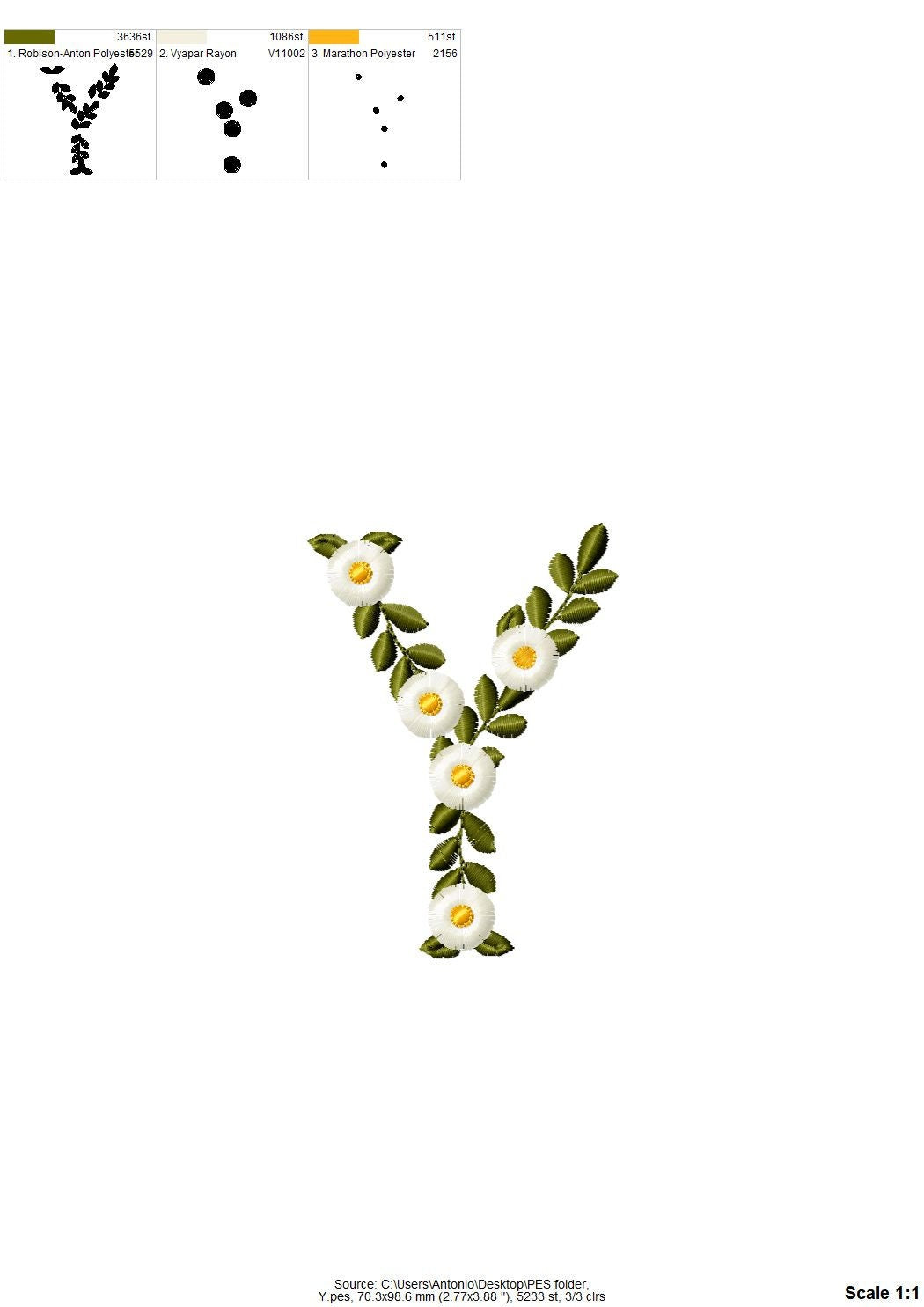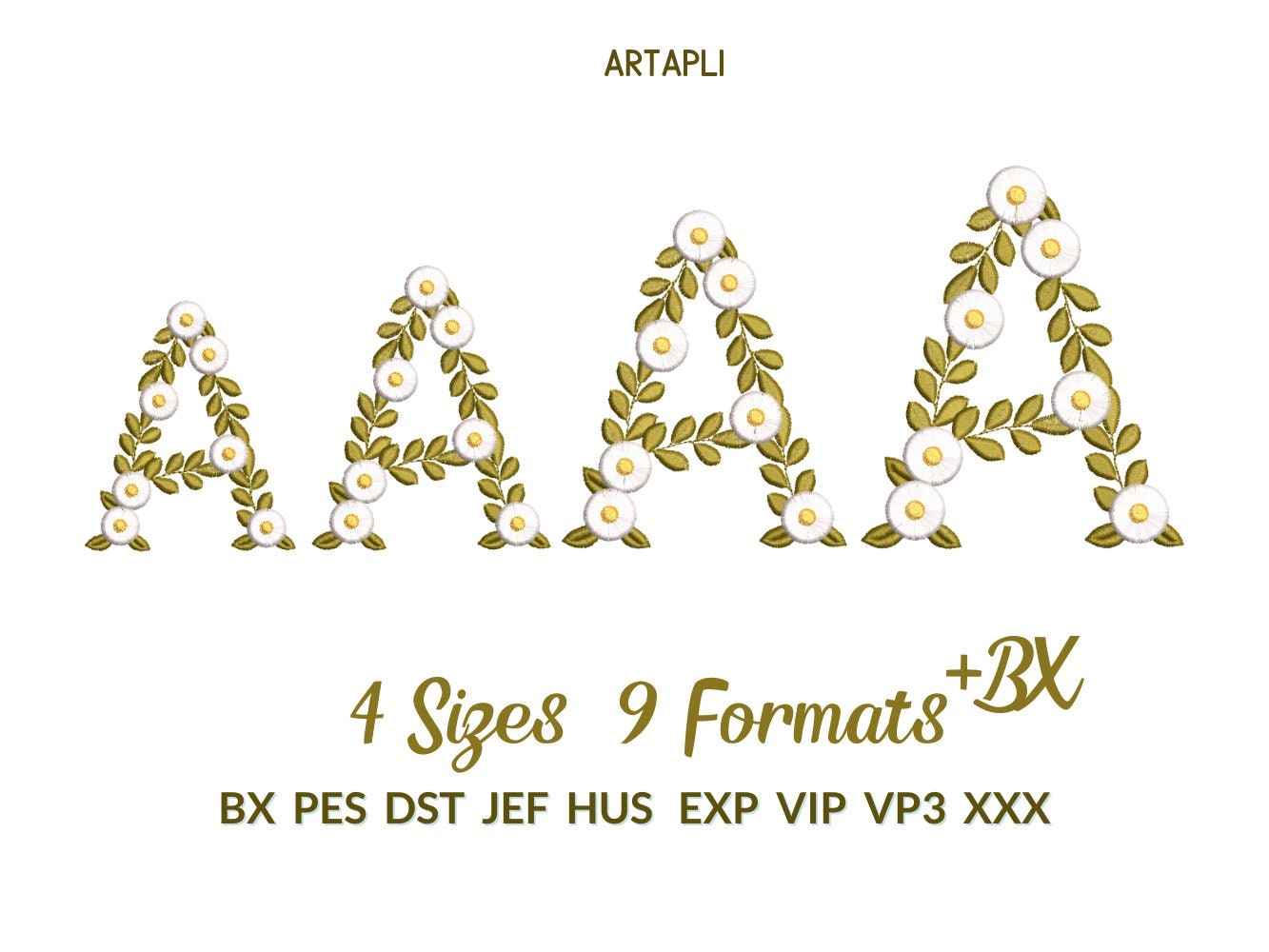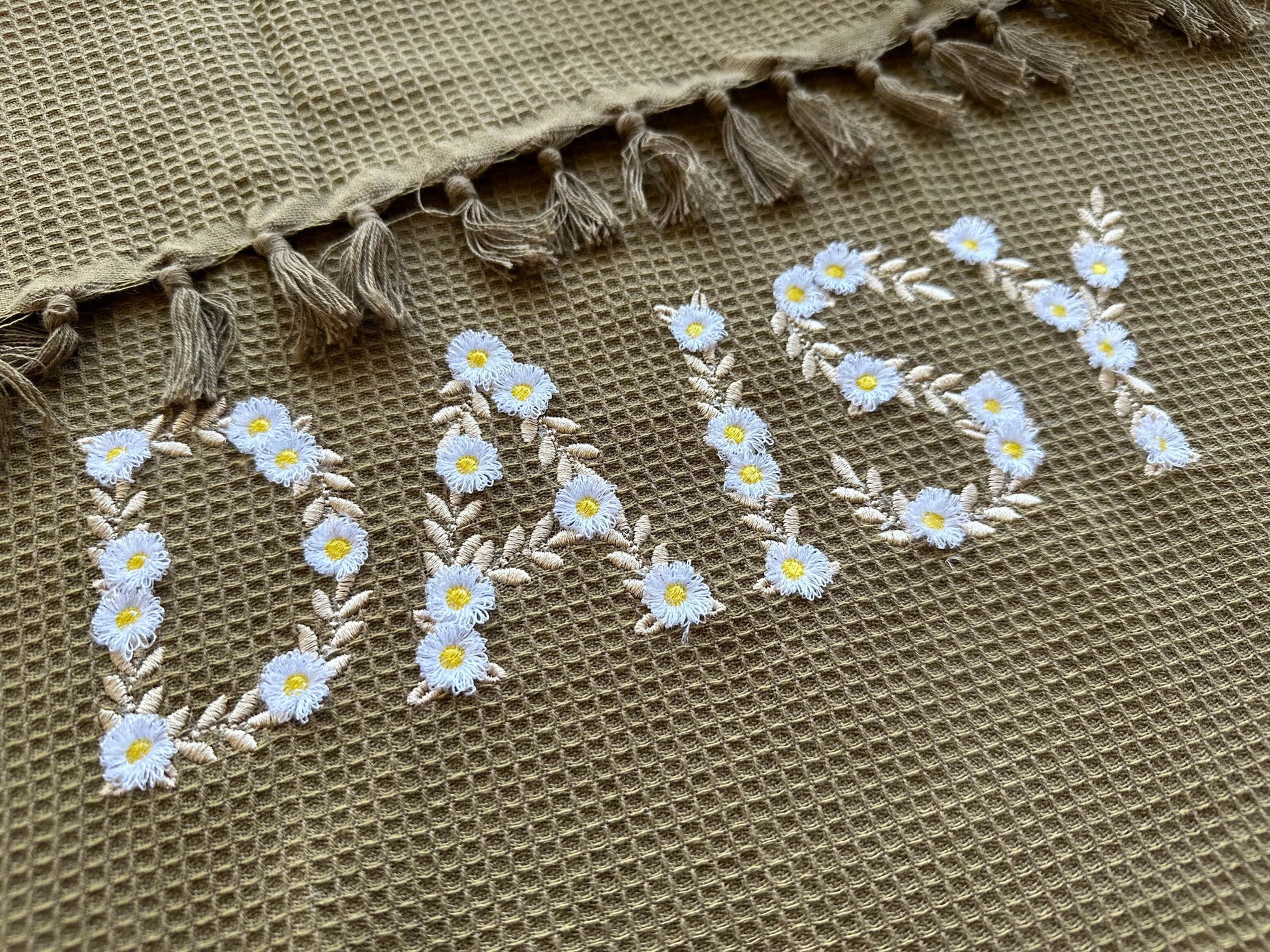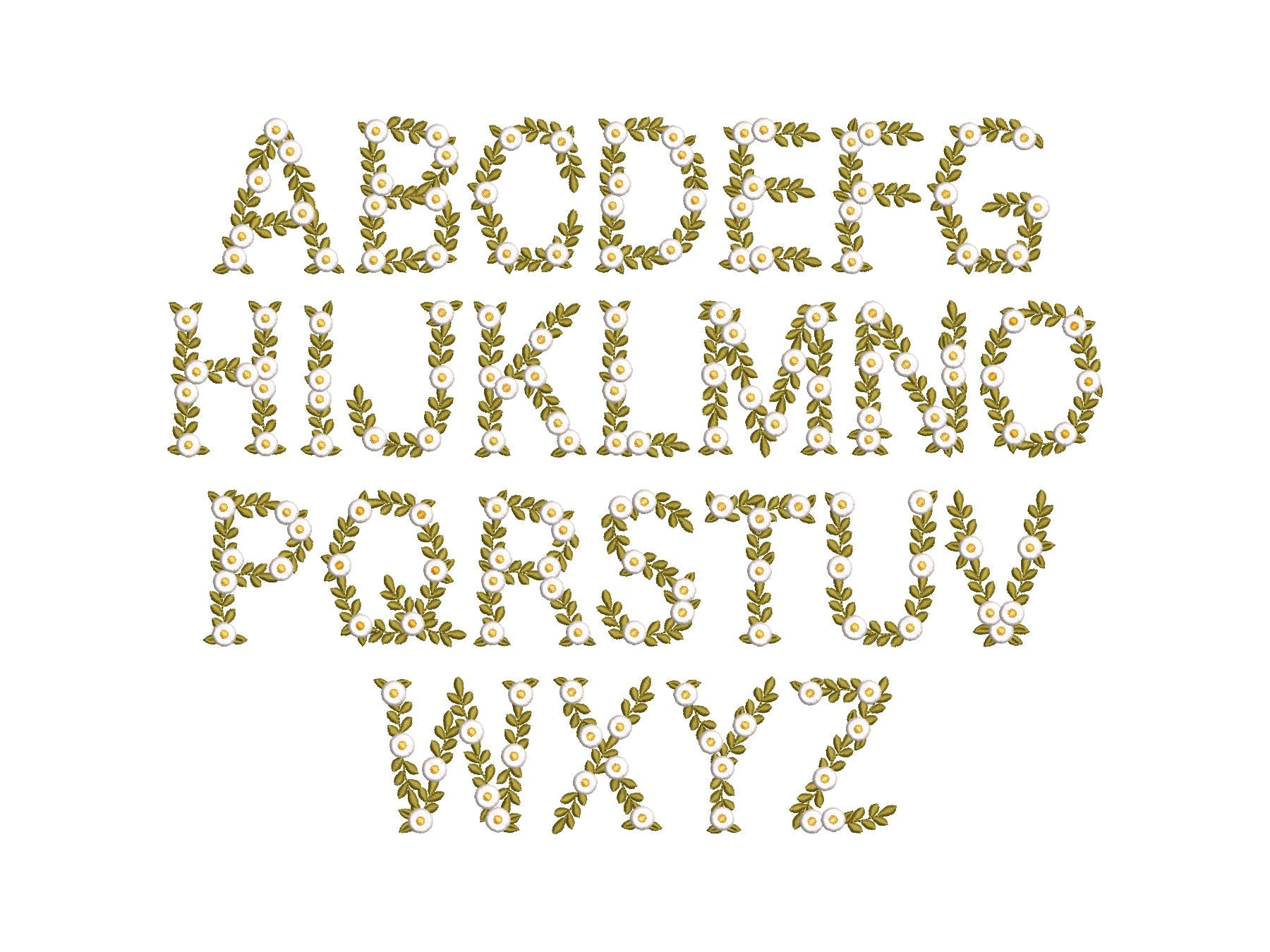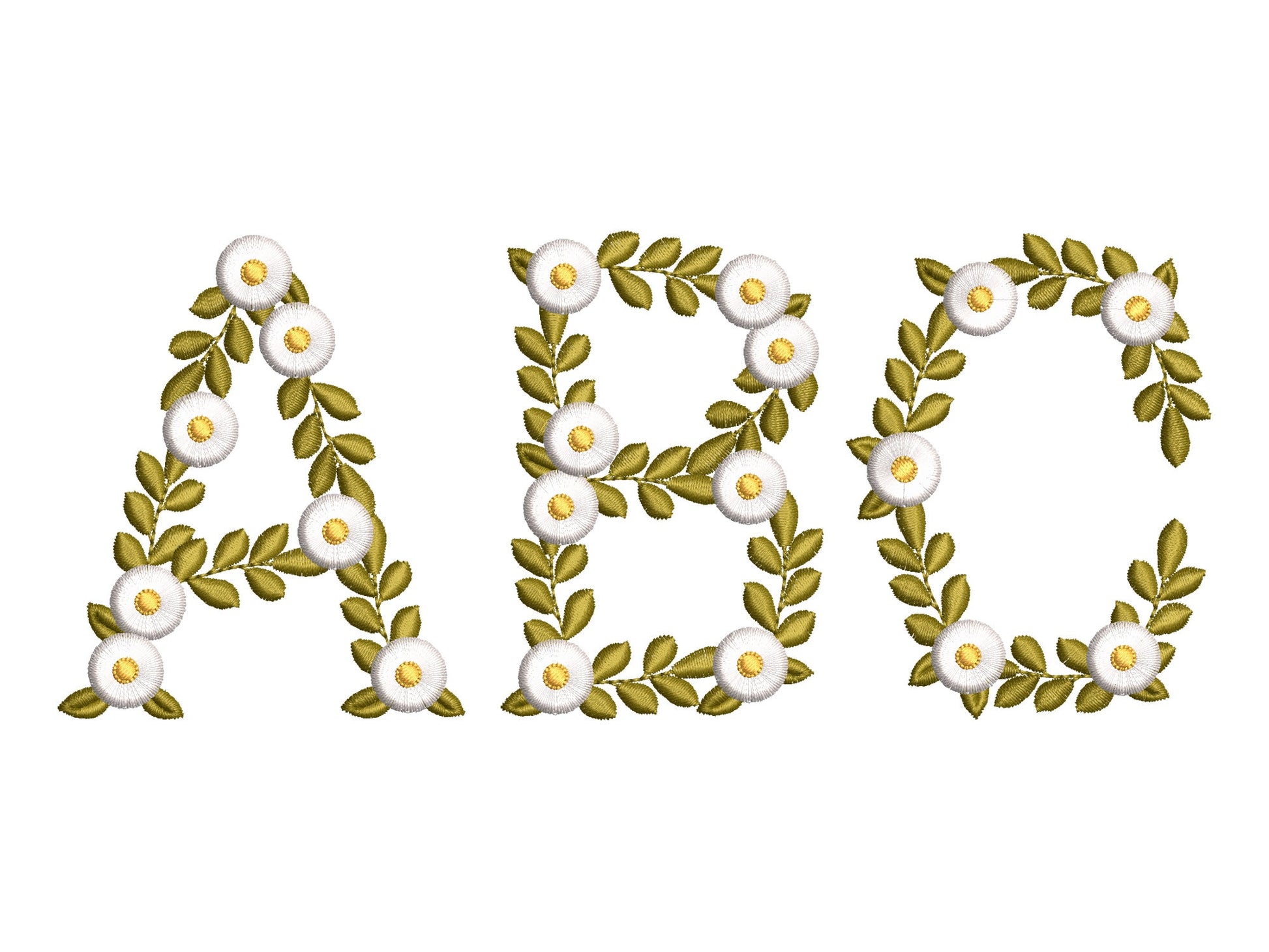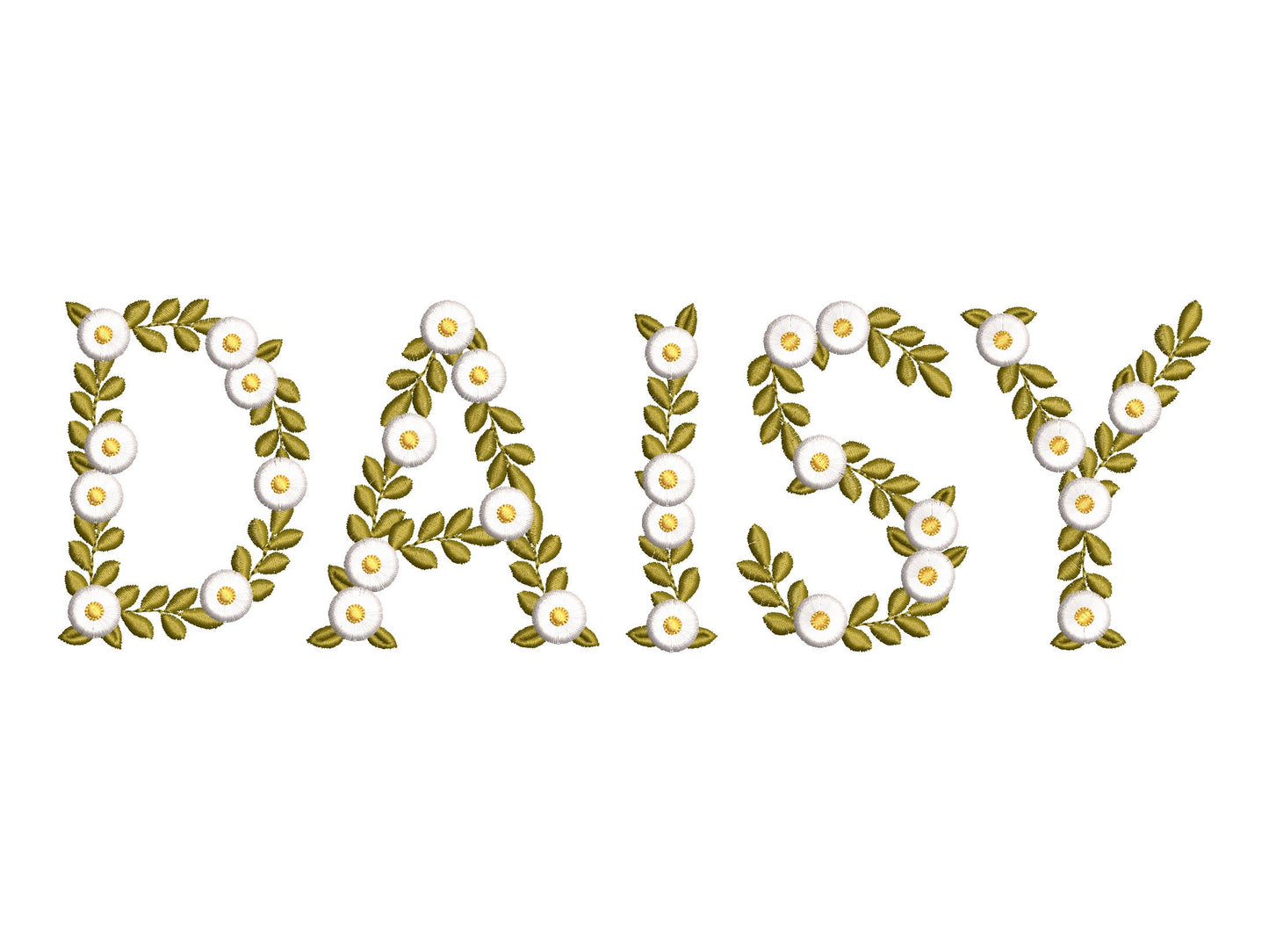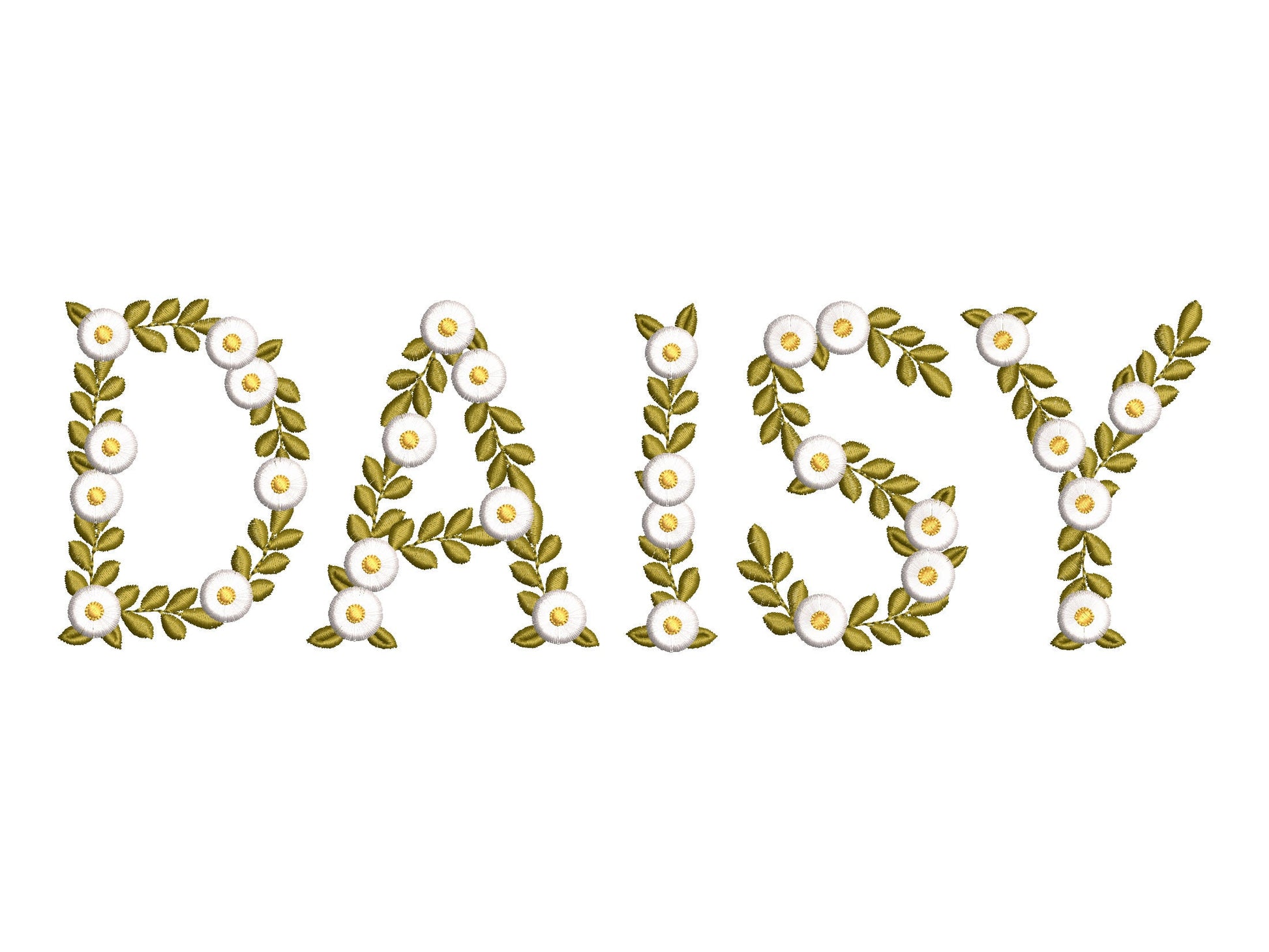
Or click to open the linkA floral monogram font with fringed daisies you can fluff up. Pretty for spring pillows, tote bags, towels and girls' gifts.
Uppercase letters A to Z. Four sizes: 3.3, 3.8, 4.5 and 5 inches. A holding seam keeps the fringed petals in place, so they are safe to wash.